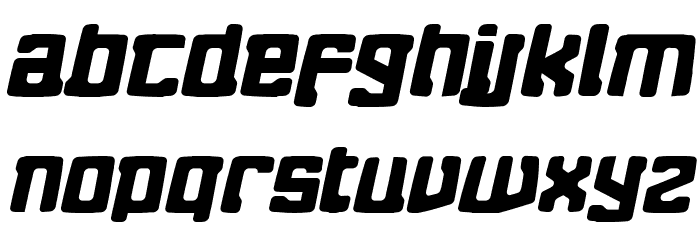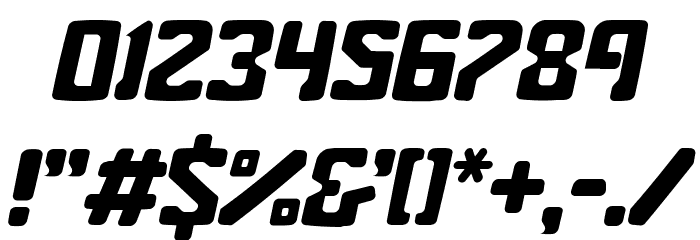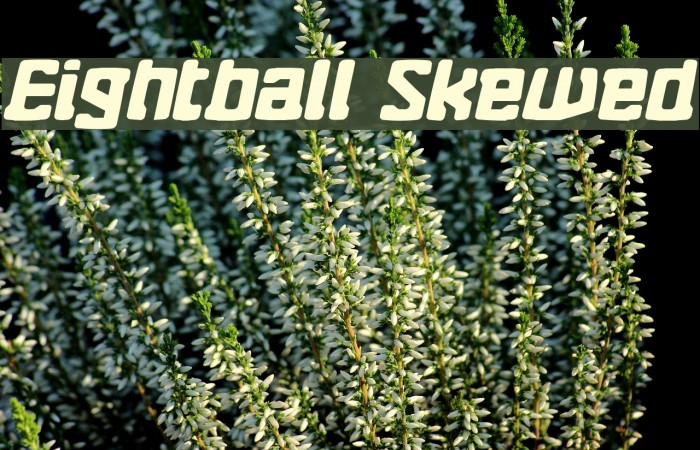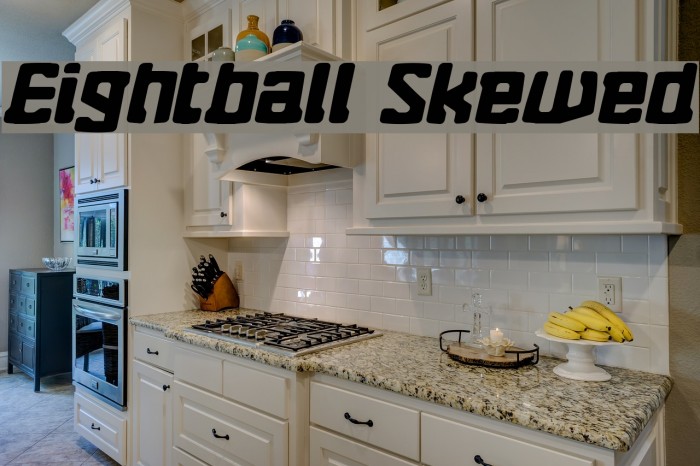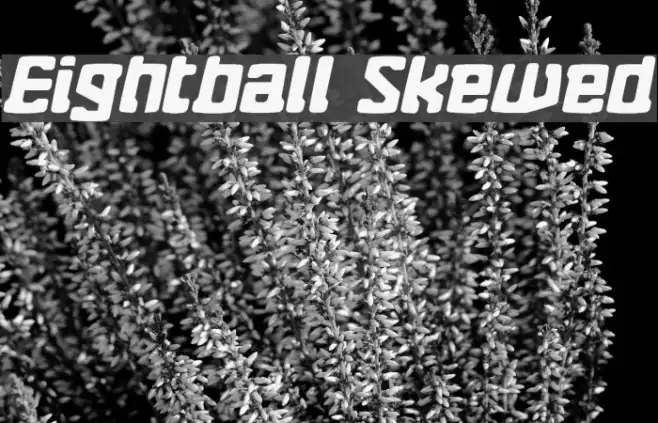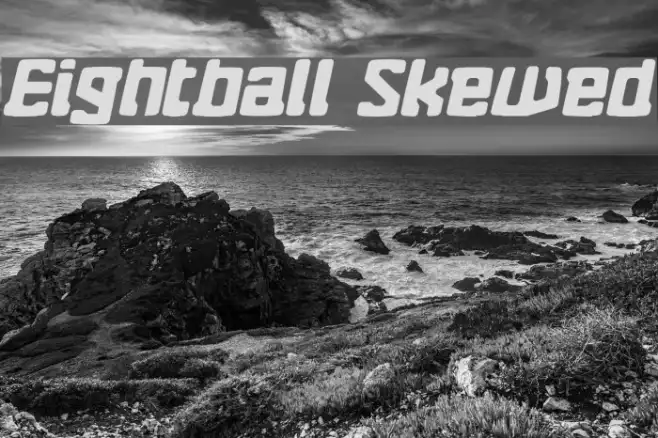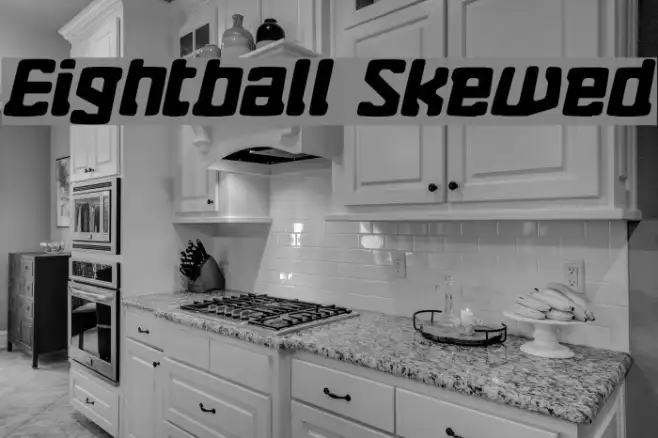
Eightball Skewed Font
This font features a bold and dynamic style with a distinct skewed appearance, giving it a sense of motion and energy. The characters are thick and robust, with a slightly condensed form that enhances their impact. The uppercase and lowercase letters maintain a consistent style, with rounded edges that soften the overall look. The numerals and special characters follow the same design principles, ensuring uniformity across all elements. This font's unique slant and boldness make it stand out, while its clean lines and smooth curves add a touch of modernity.
A bold, skewed font with a dynamic and modern style.
- Proposed Projects: Ideal for sports branding, dynamic posters, and modern advertising campaigns.